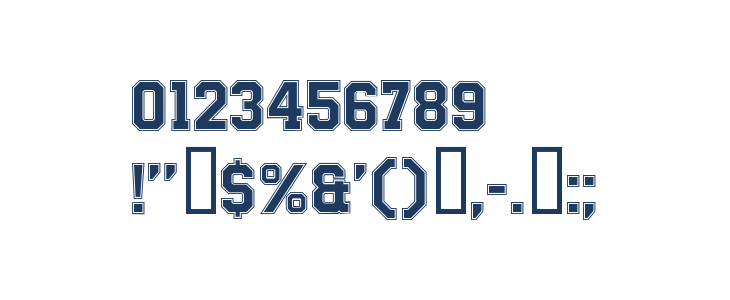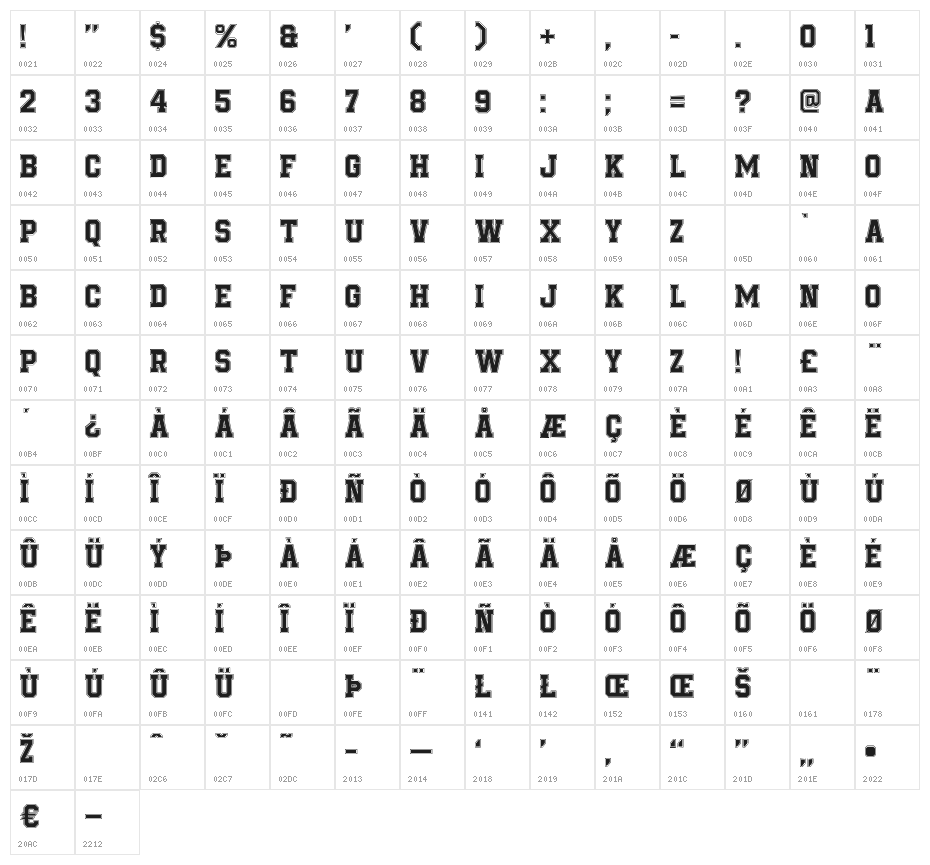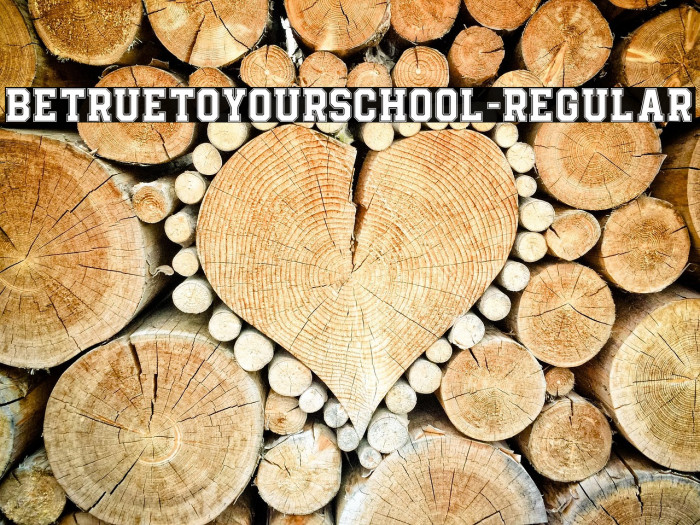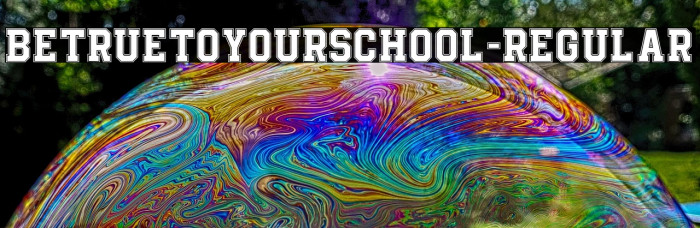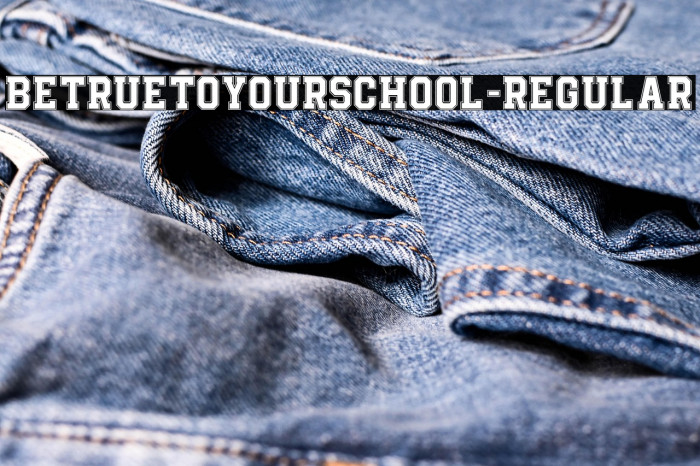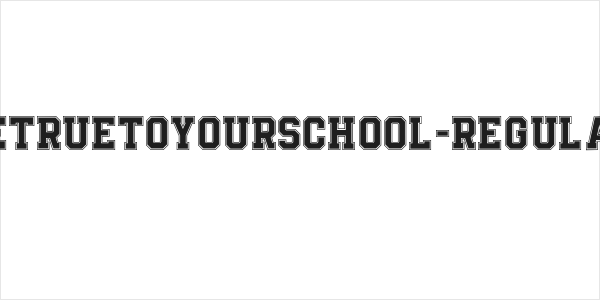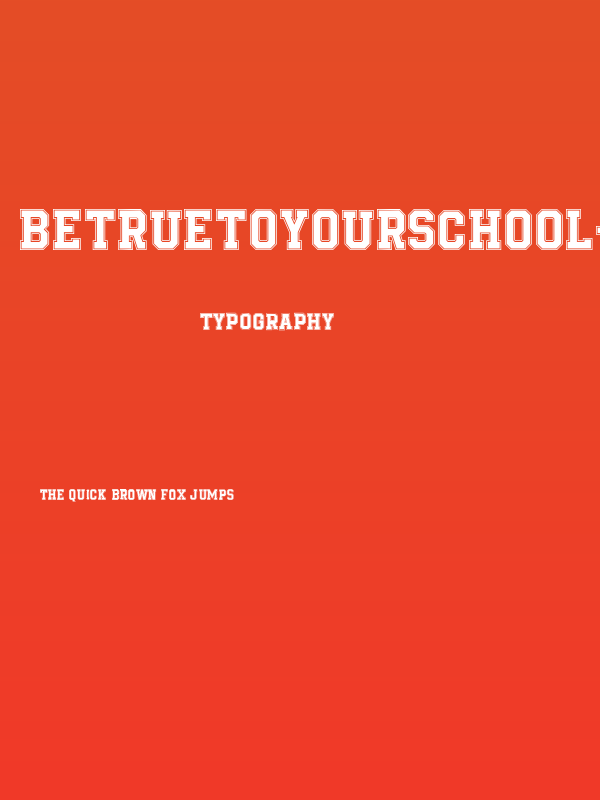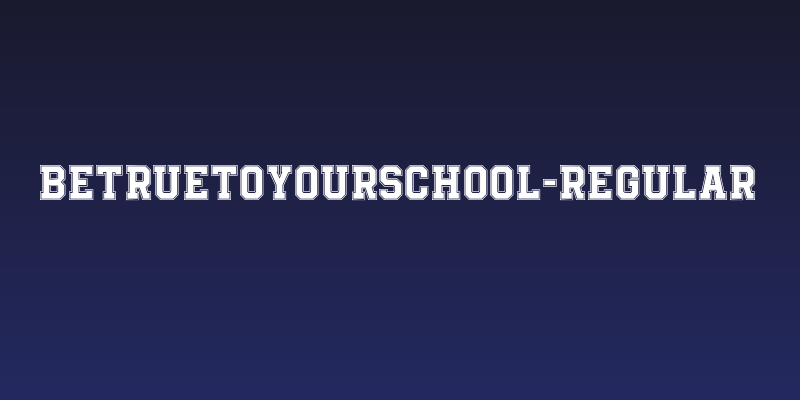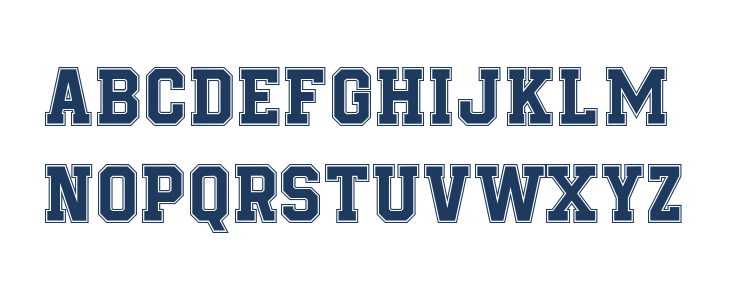
BeTrueToYourSchool-Regular Font
BeTrueToYourSchool-Regular Description
This font features a bold, collegiate style with strong, block-like characters that are reminiscent of traditional varsity lettering. The letters are outlined, giving them a three-dimensional appearance that enhances their boldness and visibility. The uppercase and lowercase letters maintain a consistent width, contributing to a uniform and structured look. The numbers and special characters follow the same design principles, ensuring cohesion across all elements. This font's design is both nostalgic and impactful, making it ideal for projects that require a strong, authoritative presence.
| Proposed Projects | Ideal for sports team branding, school merchandise, event posters, and retro-themed designs. |